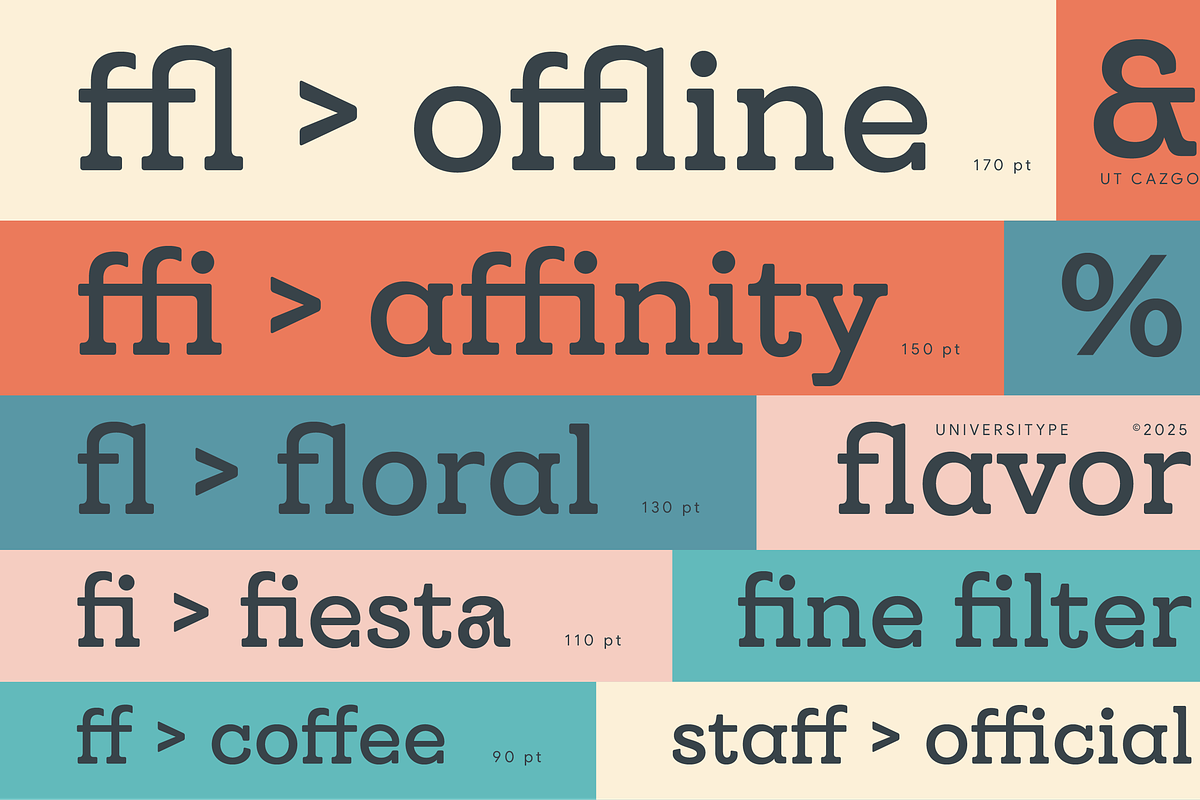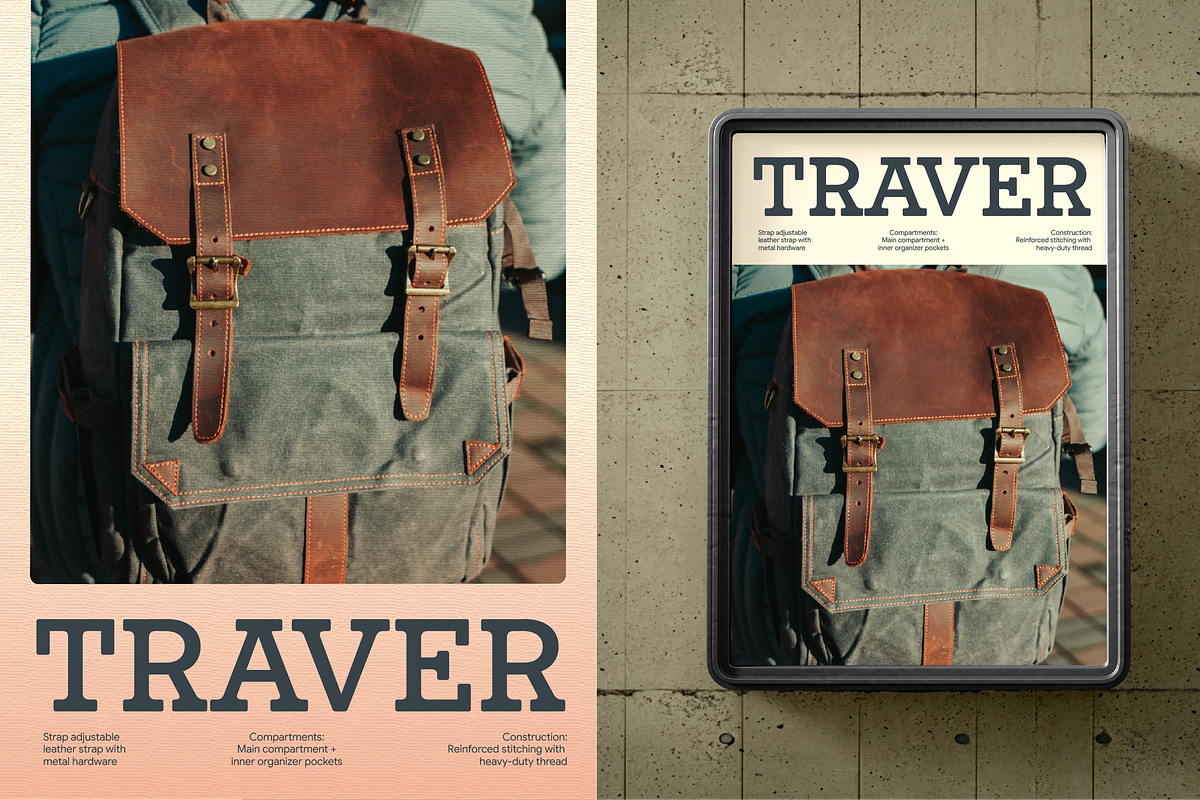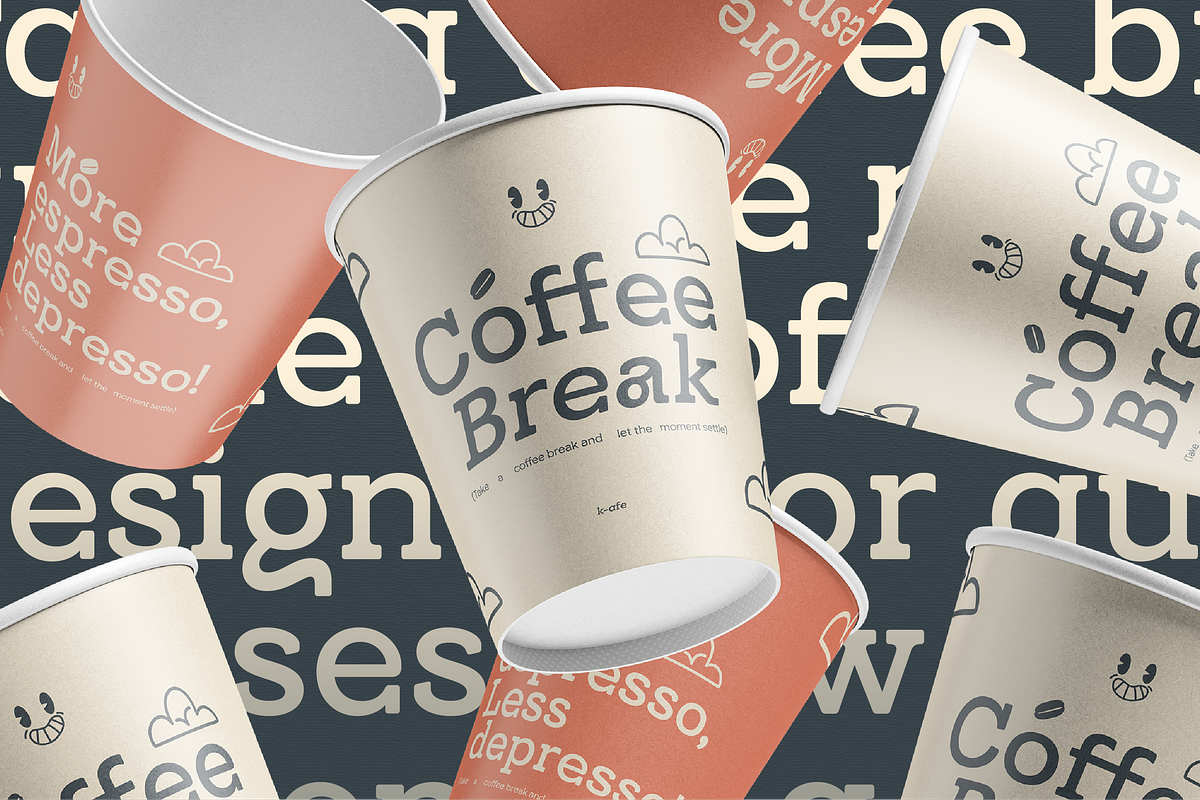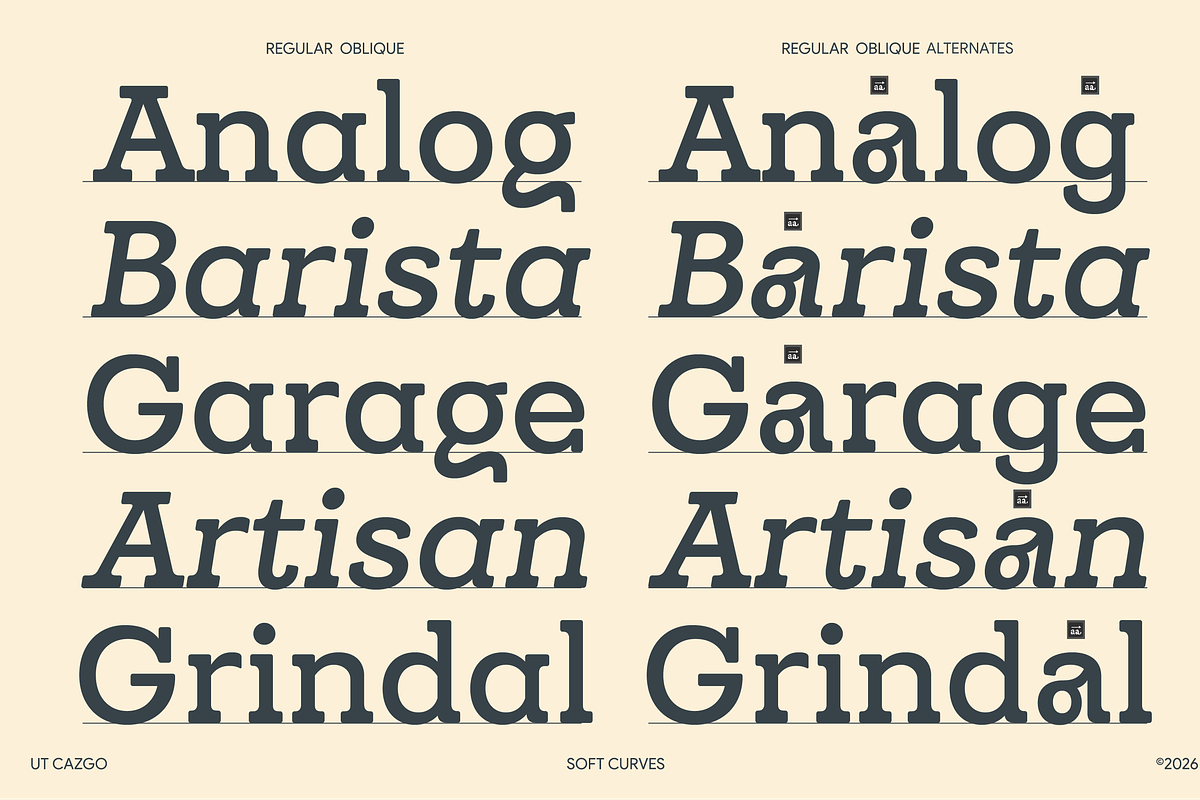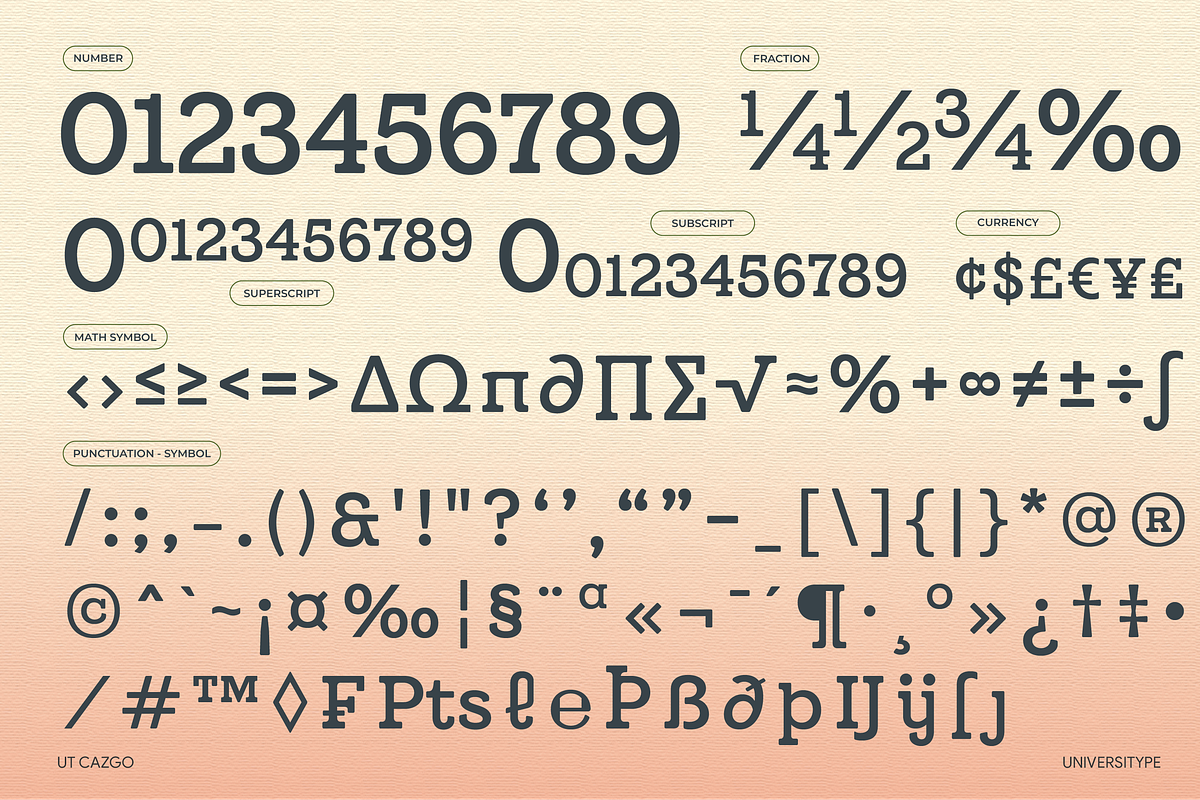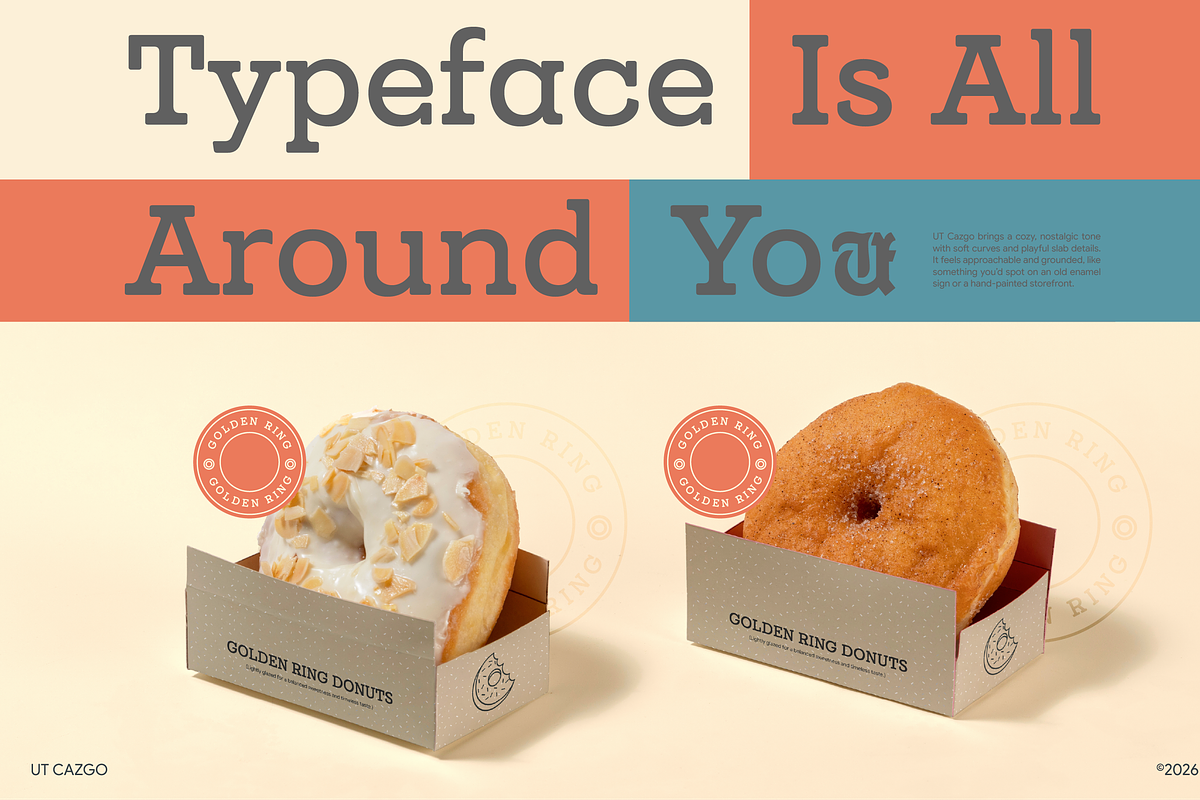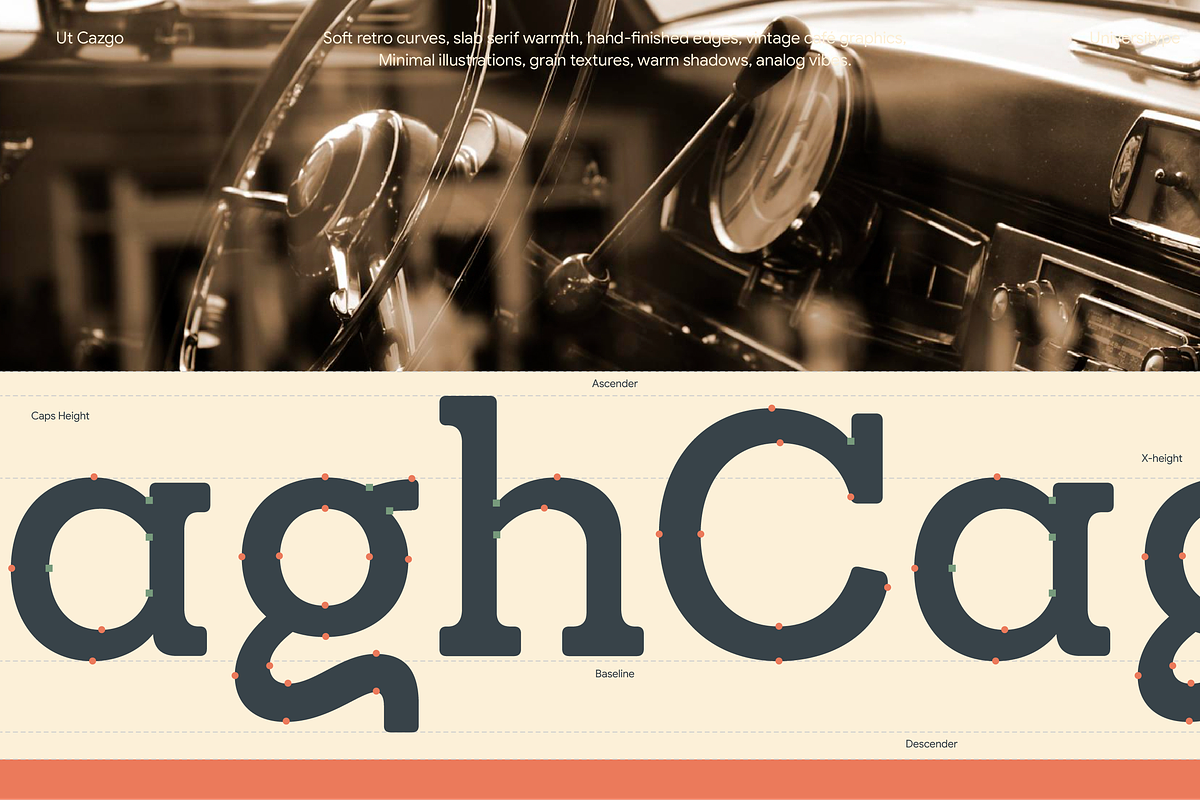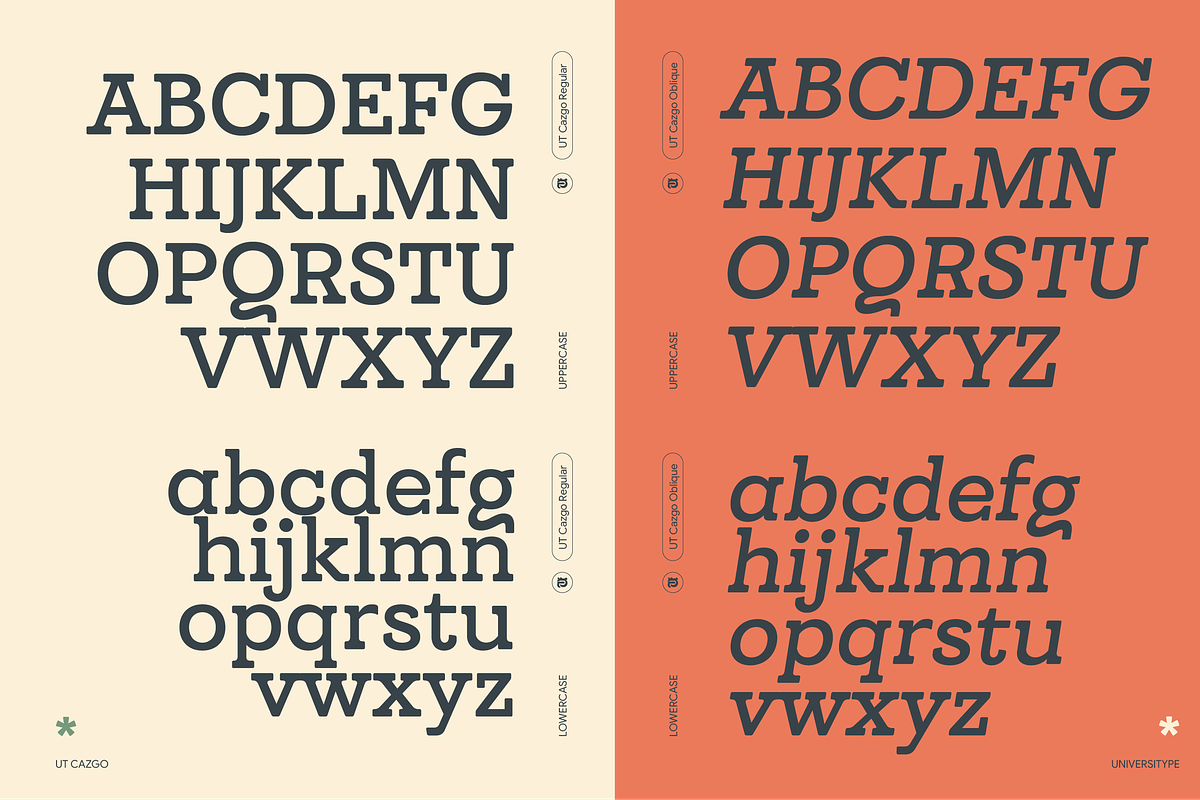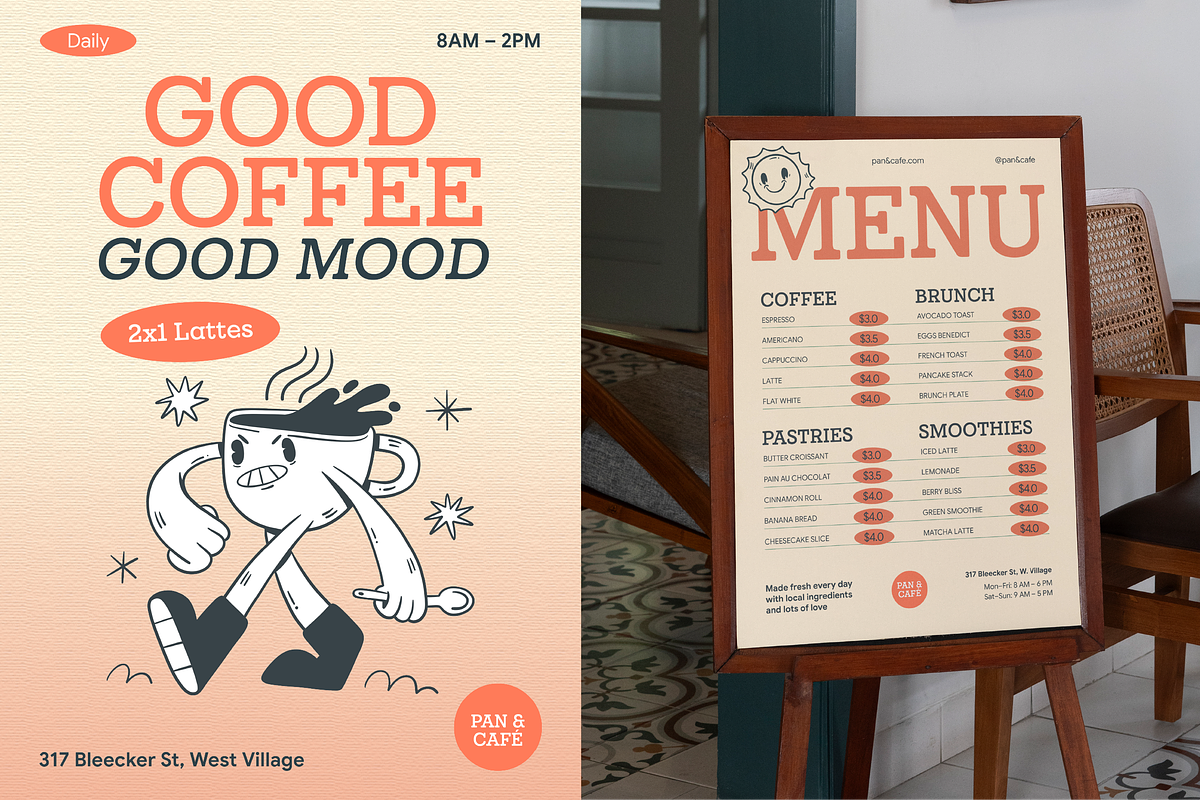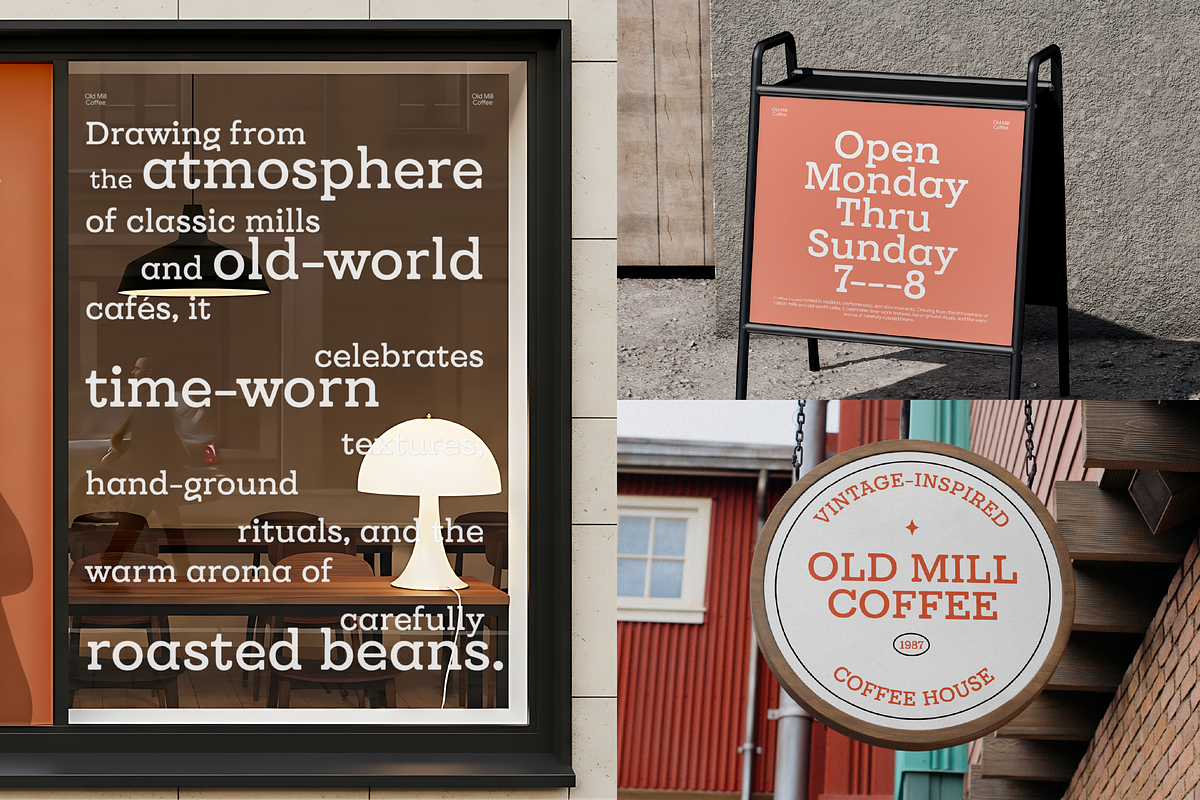
UT Cazgo - A Stylish Slab Serif
UT Cazgo is a warm slab serif typeface with soft curves and subtle hand-finished details. It combines sturdy letterforms with a relaxed, approachable tone, making it a great fit for artisan branding, packaging, and editorial headlines. With Regular and Oblique styles, stylistic alternates, and ligatures, Cazgo adds a tactile, analog feel to both print and digital projects.
Uppercase, lowercase, numerals, punctuation, ligatures, stylistic alternates, multilingual support